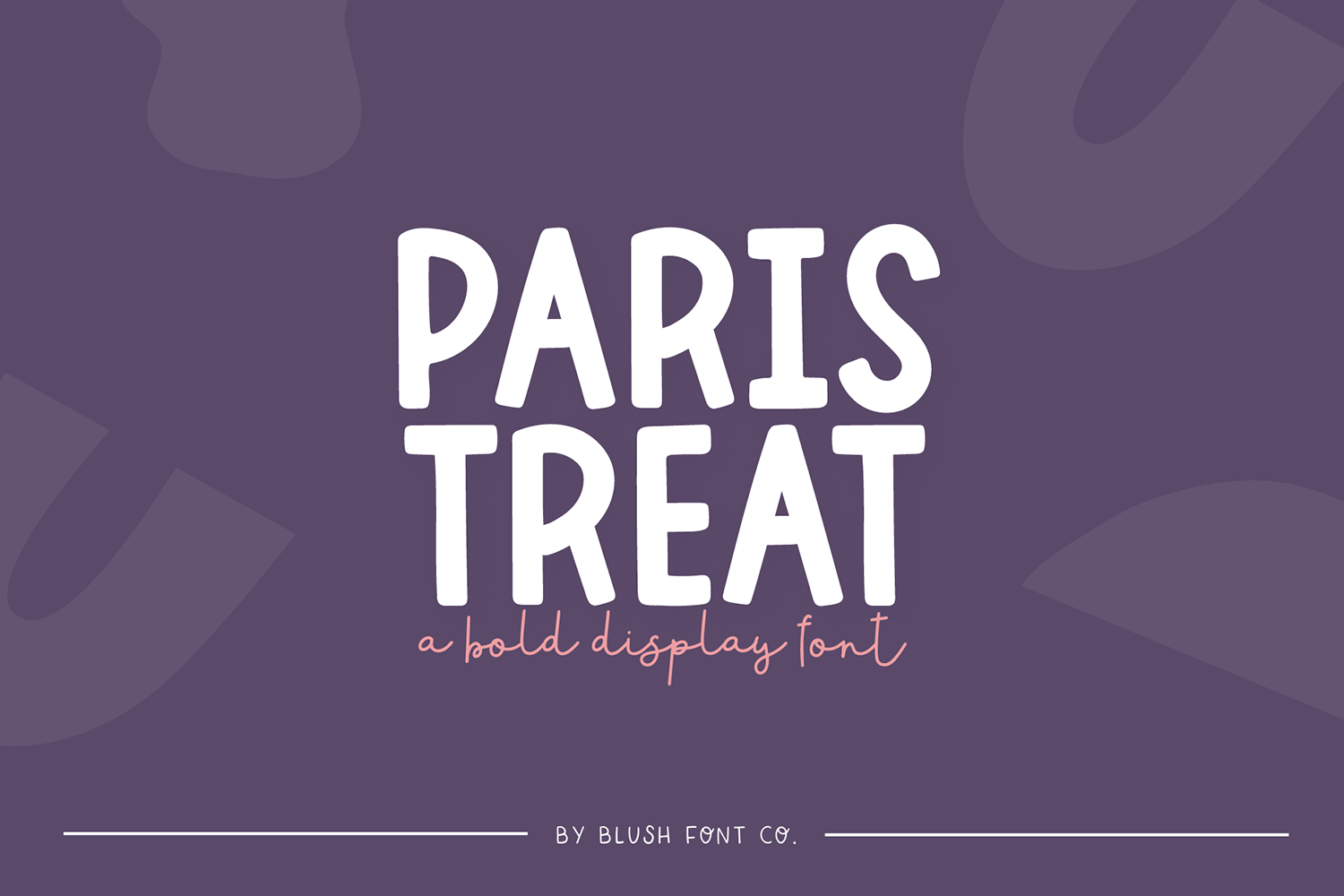
PARIS TREAT Vintage Display Font
"Paris" Bold display font.
Paris is a bold vintage font that is perfect for social media or crafty projects. Use it for t-shirts, birthday invitations, and more! This font includes basic punctuation marks, numbers, and international characters.